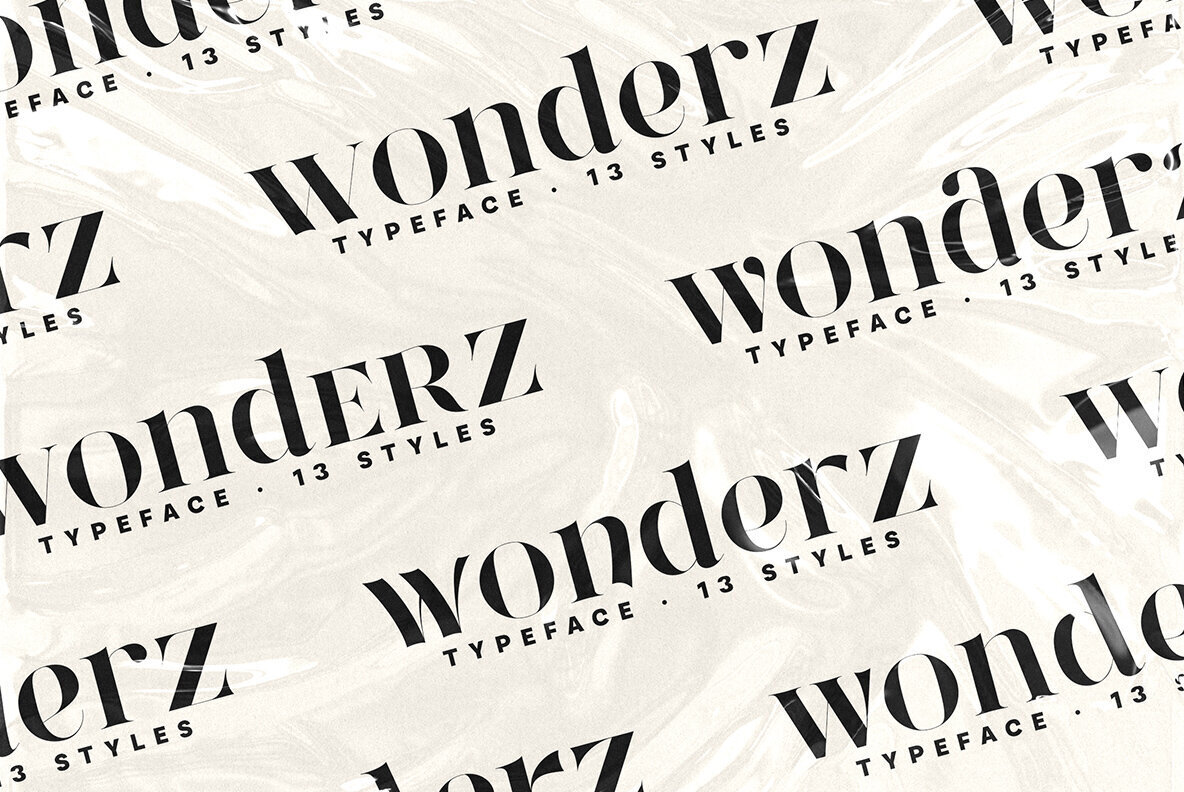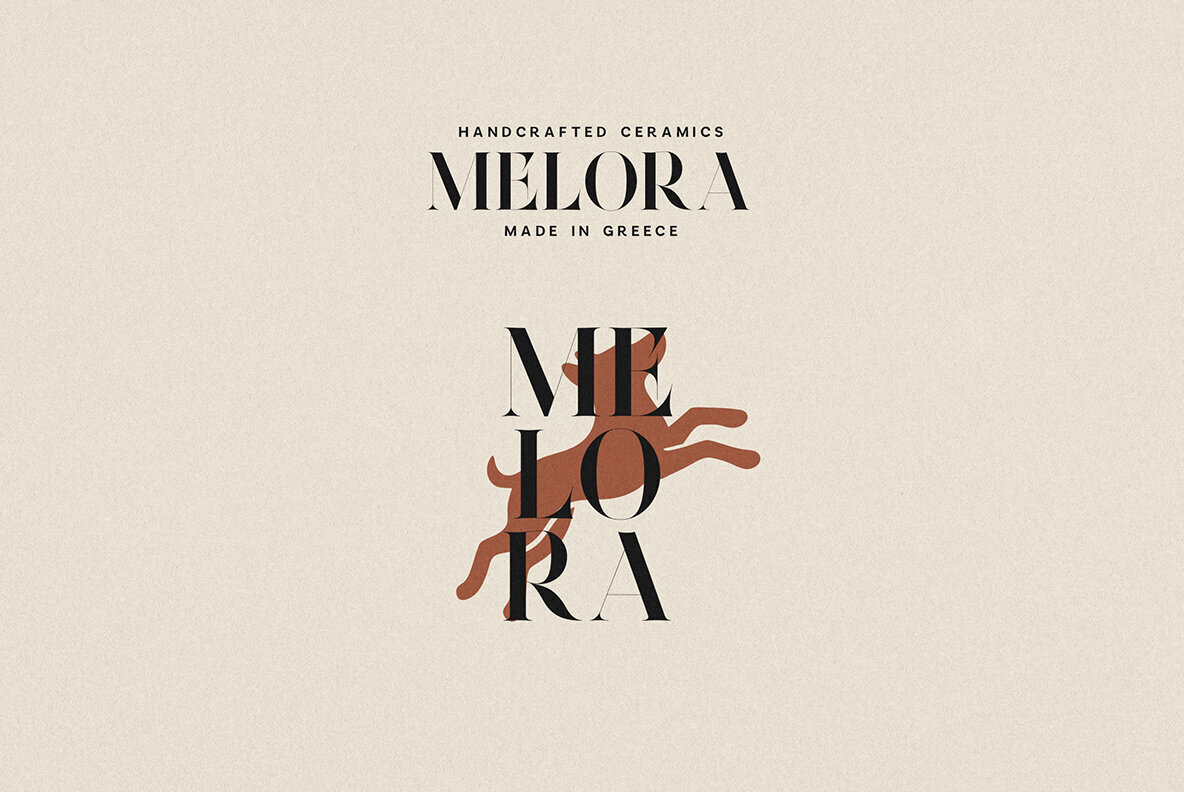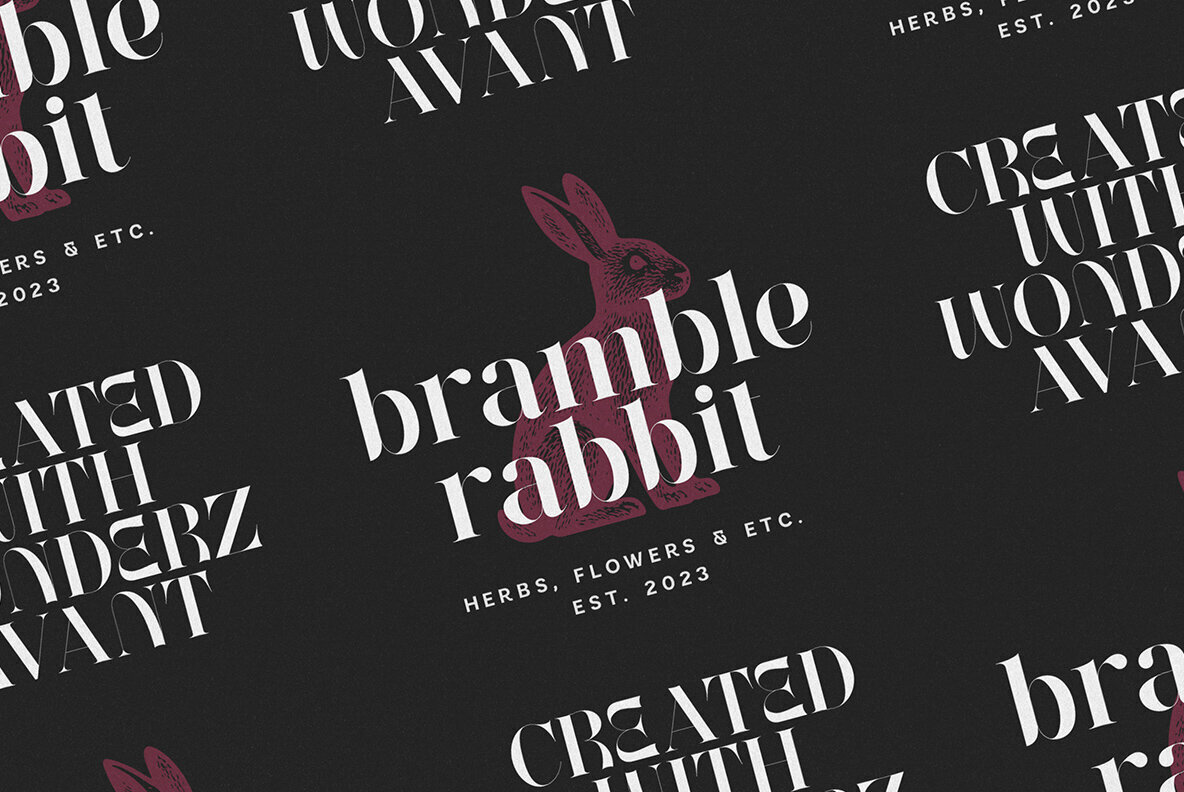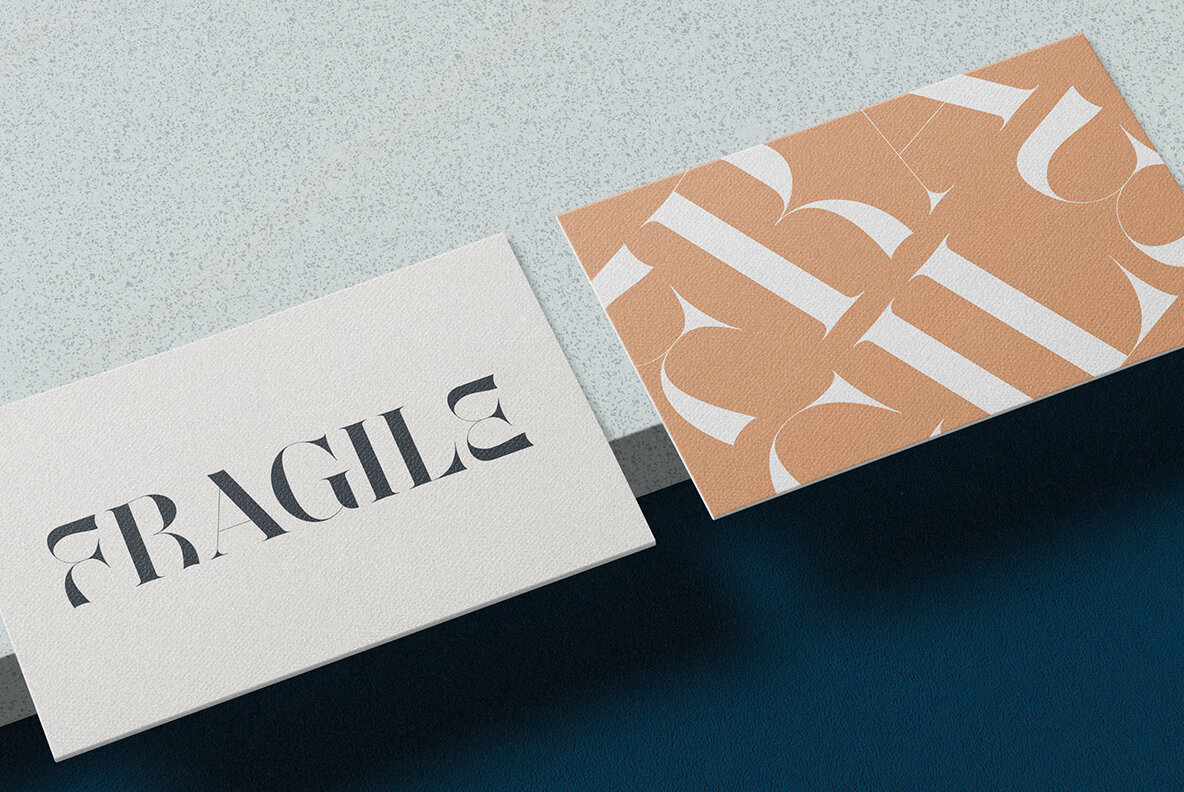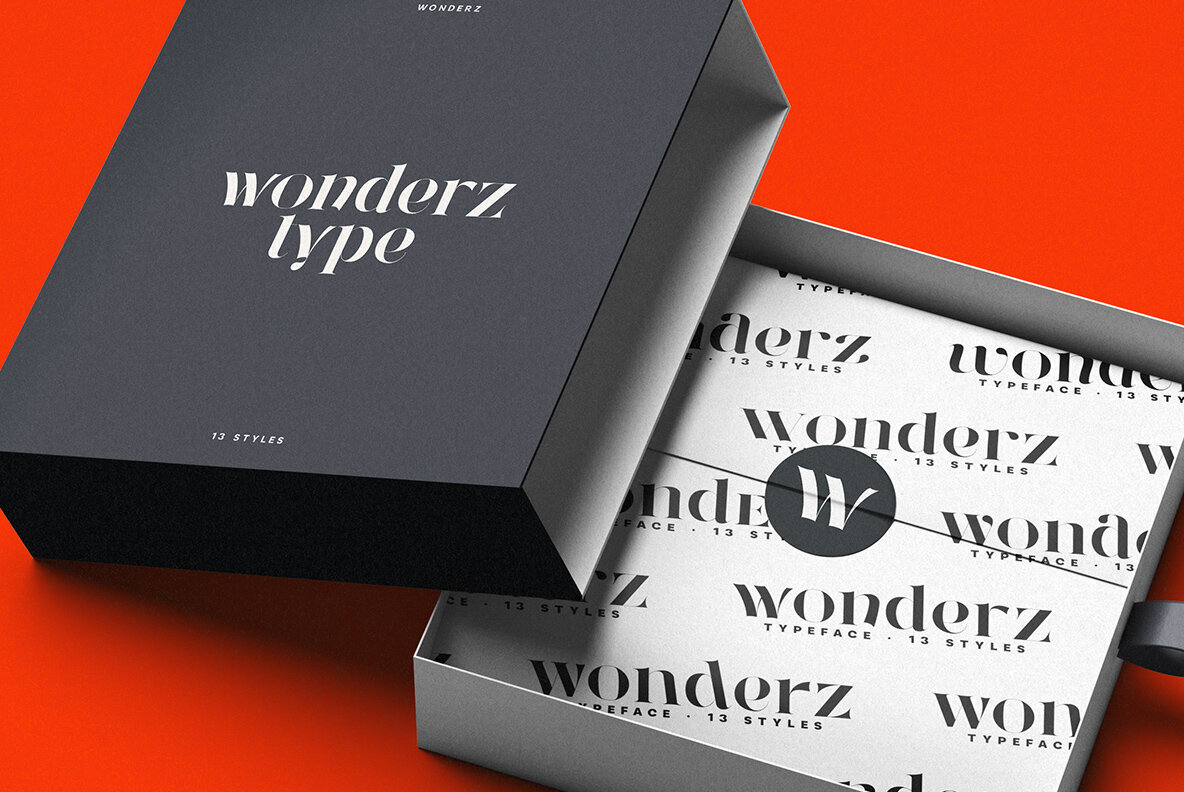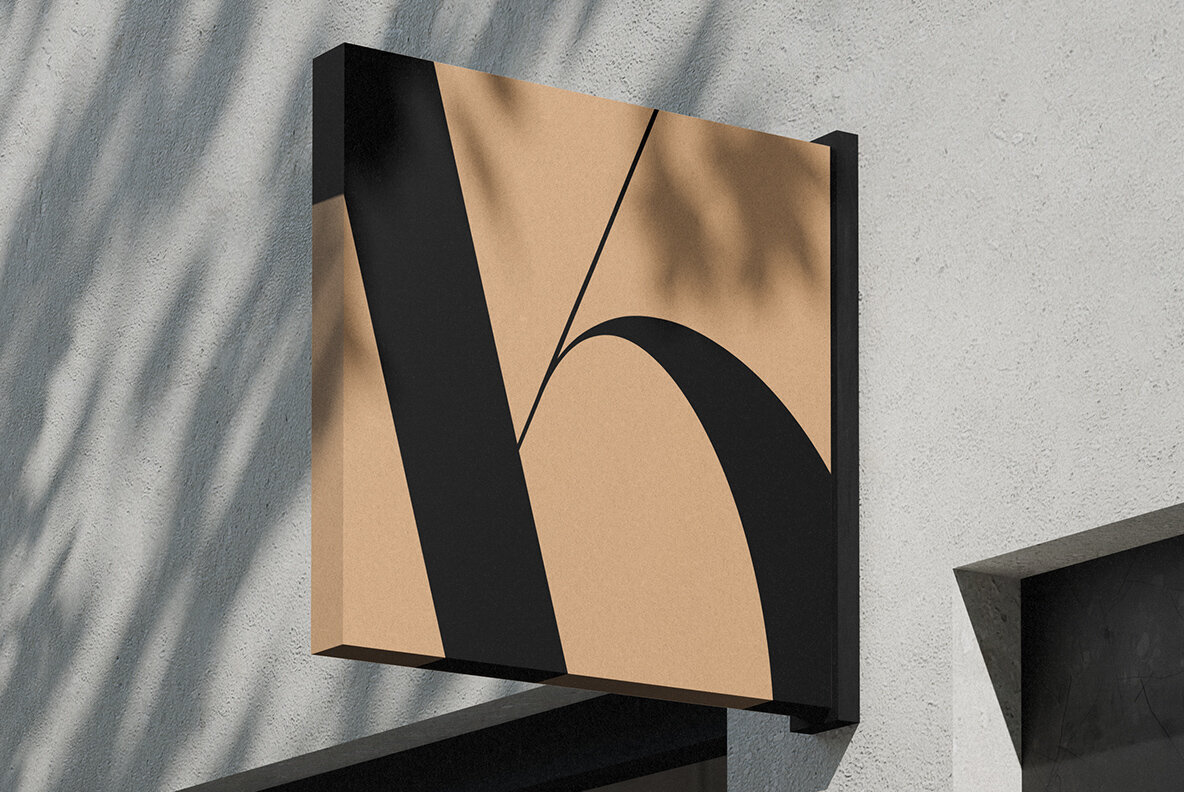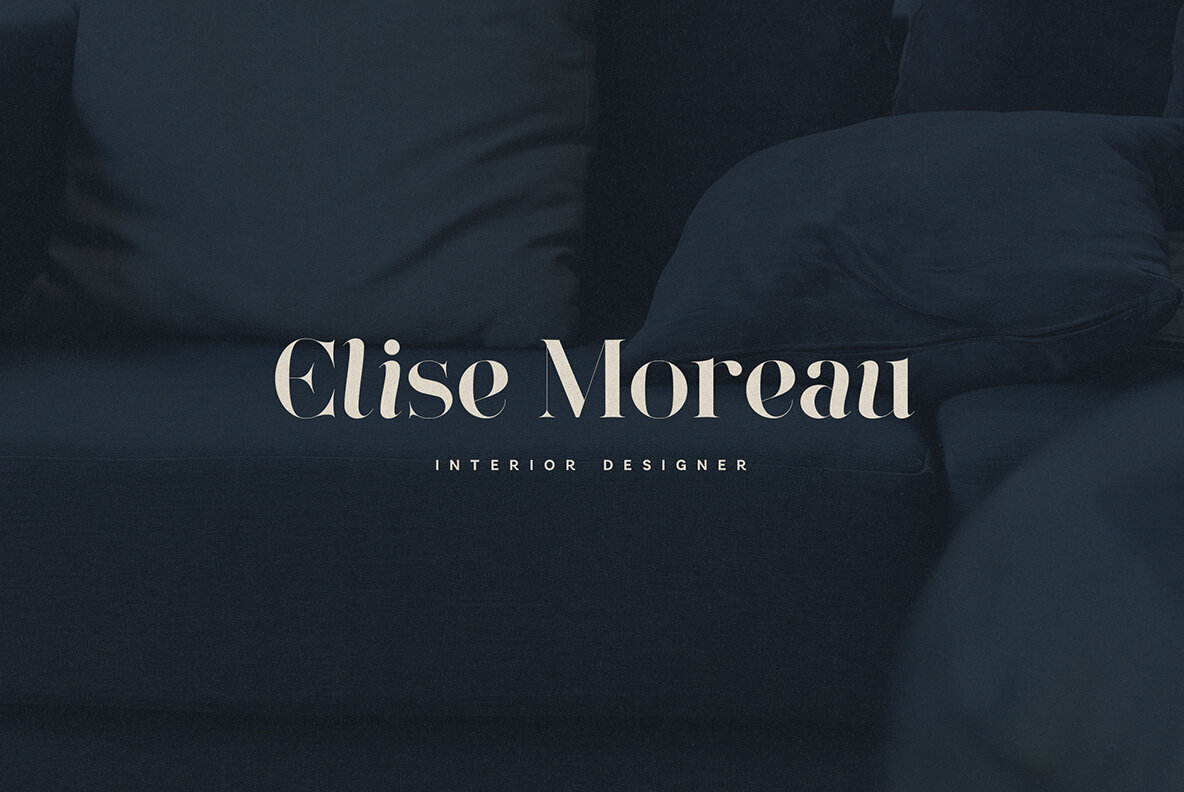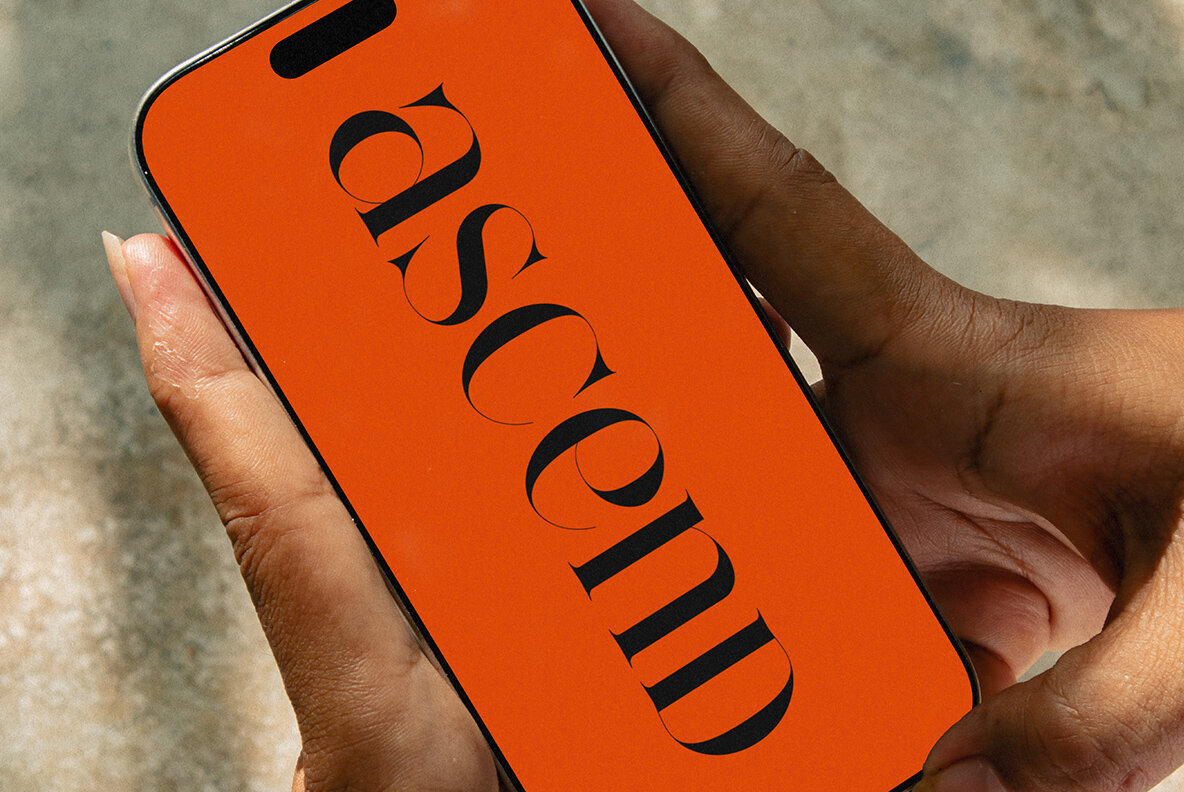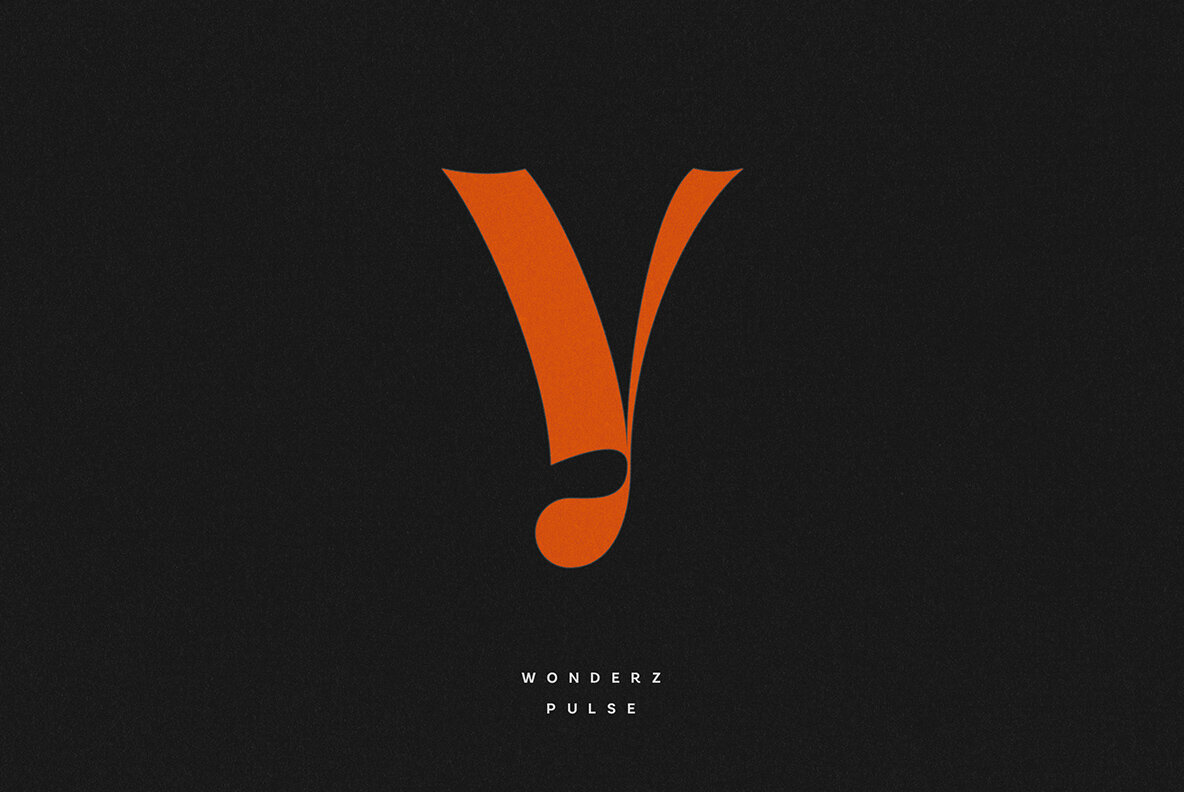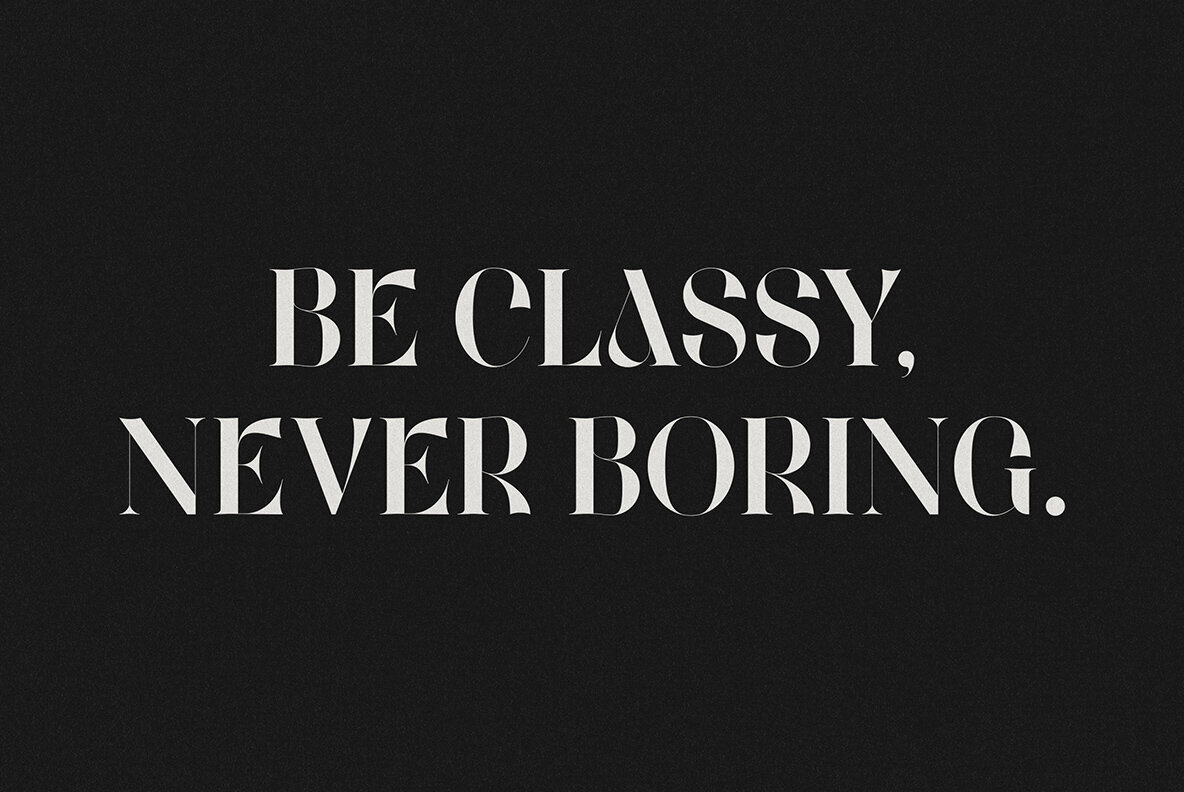
Wonderz Font
Wonderz typeface merges sophistication with versatility, offering a modern serif solution for designers who value both elegance and functionality. With 12 distinctive styles—Edge, Ascend, Avant, Echo, Elite, Flair, Flow, Grace, Prime, Pulse, Regular, and Vogue—this font family enables a seamless transition between subtlety and statement. High-contrast strokes and carefully balanced curves define each letterform, resulting in a typographic voice that feels at once current and timeless. Ideal for luxury branding, editorial design, packaging, or digital presentations, Wonderz grants creative directors and graphic designers the flexibility to articulate visual identity across various touchpoints. The selection ranges from the poised authority of Edge to the organic fluidity of Flow, supporting a broad spectrum of brand expressions without sacrificing clarity or style. Each style has been meticulously refined to perform as well in headlines as in paragraph text, making Wonderz a reliable tool for both digital and print design contexts.Wonderz Typeface: Contemporary Serif with Classic Allure